Choosing the right font when creating your logo is key to a successful branding. Different kinds of font style and font pairing can communicate with your clients and customers whenever and wherever they see them. They are the perfect tools for delivering your unique brand personality. LogoAI offers hundreds of font choices and I have put together 10 best fonts for your logo design, let's explore them together!
1. Poppins
Poppins is a sans-serif font with many different kinds of fonts weight to choose from. With the clean lines and minimal forms, Poppins is a great choice if you want to create modern logo design remain versatility and readability.
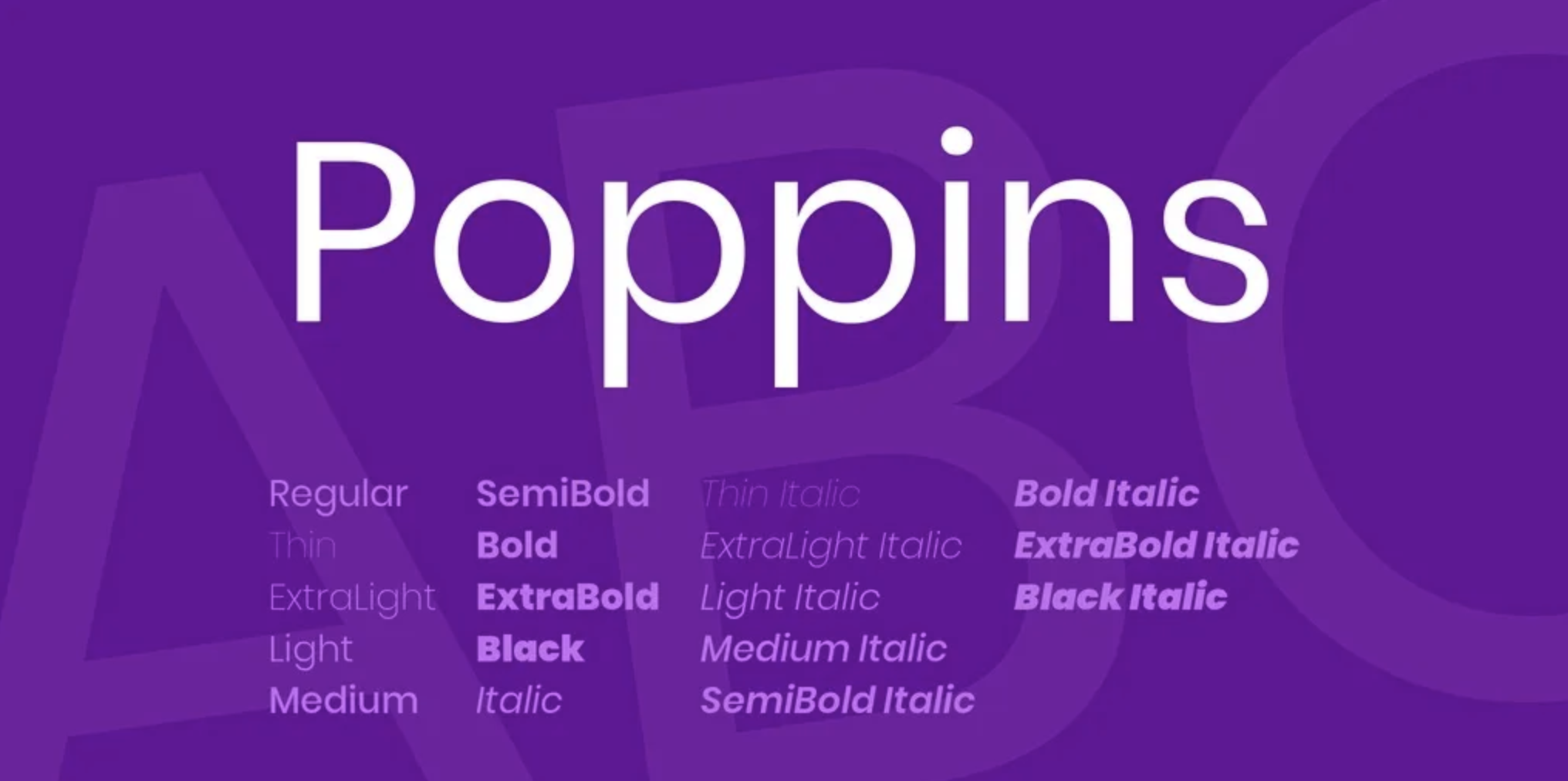
Its contemporary style makes it suitable for brands seeking a modern and openness message in the brand. It's a perfect font choice for your company marketing materials, for example business card , posters and invoice templates.
2. Almond
The Almond font is a blend of modern elegance, characterized by straight lines of varying widths that add a dynamic touch. Its classic foundation is enhanced by an infusion of elegance and a sense of dynamism, creating a unique typographic style.
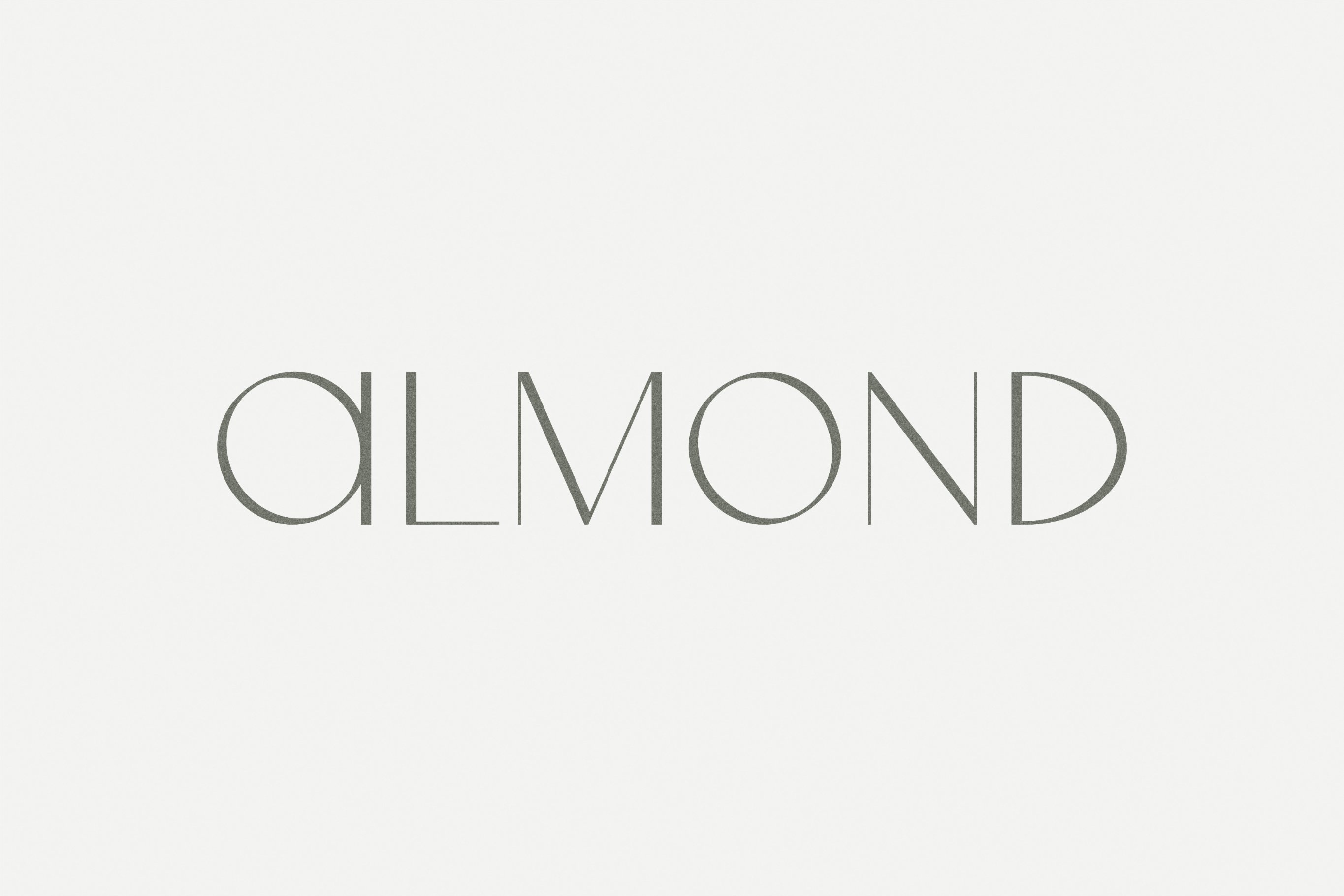
It's ideal for high-end brands seeking to bring out a modern and dynamic vibe. You can generate a unique logo symbol to complement your typeface to make a perfect logo for your business.
3. Shine
Shine is a very elegant handwriting font. It has a unique blend of classic grace and softness. Those elegant curves convey a sense of high-end and sophisticated appearance.
You can use this font for beauty, luxury or any high-end services or to create fancy signature logos. Utilizing this unique typeface will make your brand stand out from the crowed.
4. Julius Sans One
Julius Sans One is a very elegant sans-serif font. It has a unique balance of classic and contemporary design elements. It's a perfect choice for your logo if you are looking for bring certain sophistication and luxury to your brand.
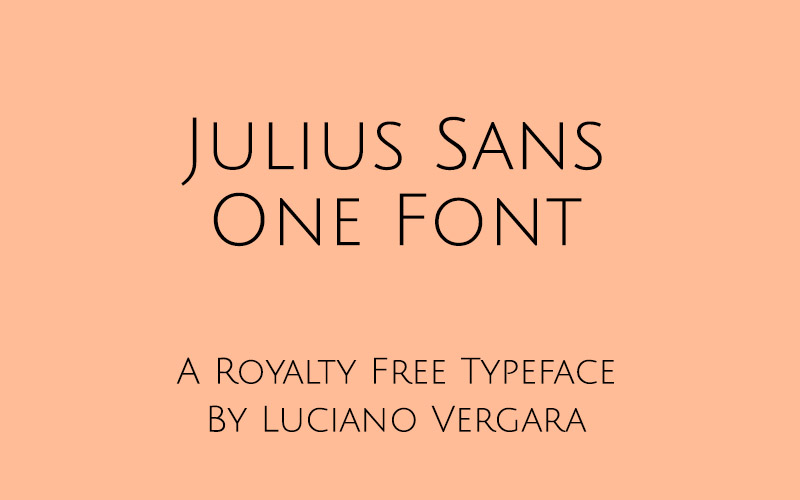
Julius Sans One could be a good choice for industries related to art, fashion, and design due to its unique and creative look.
5. Space Mono
Space Mono can be a very unique choice when it comes to branding. Combining traditional typewriter letterforms with a modern, geometric twist, it deliver a retro but futuristic vibe to the appeal.
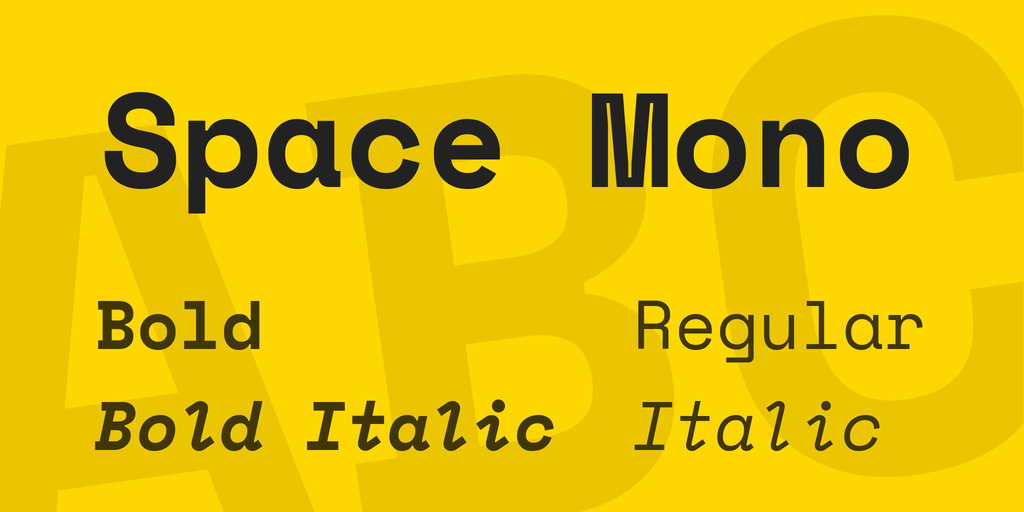
If you are about to start a company related to tech, coding or retro-themed design, Space Mono will be an excellent font to convey a sense of uniqueness and modernity.
6. Lena
Lena is a font that combine straight lines with soft forms to make the whole look very elegant. It is very suitable for companies with a strong brand style to use this font to convey brand character.
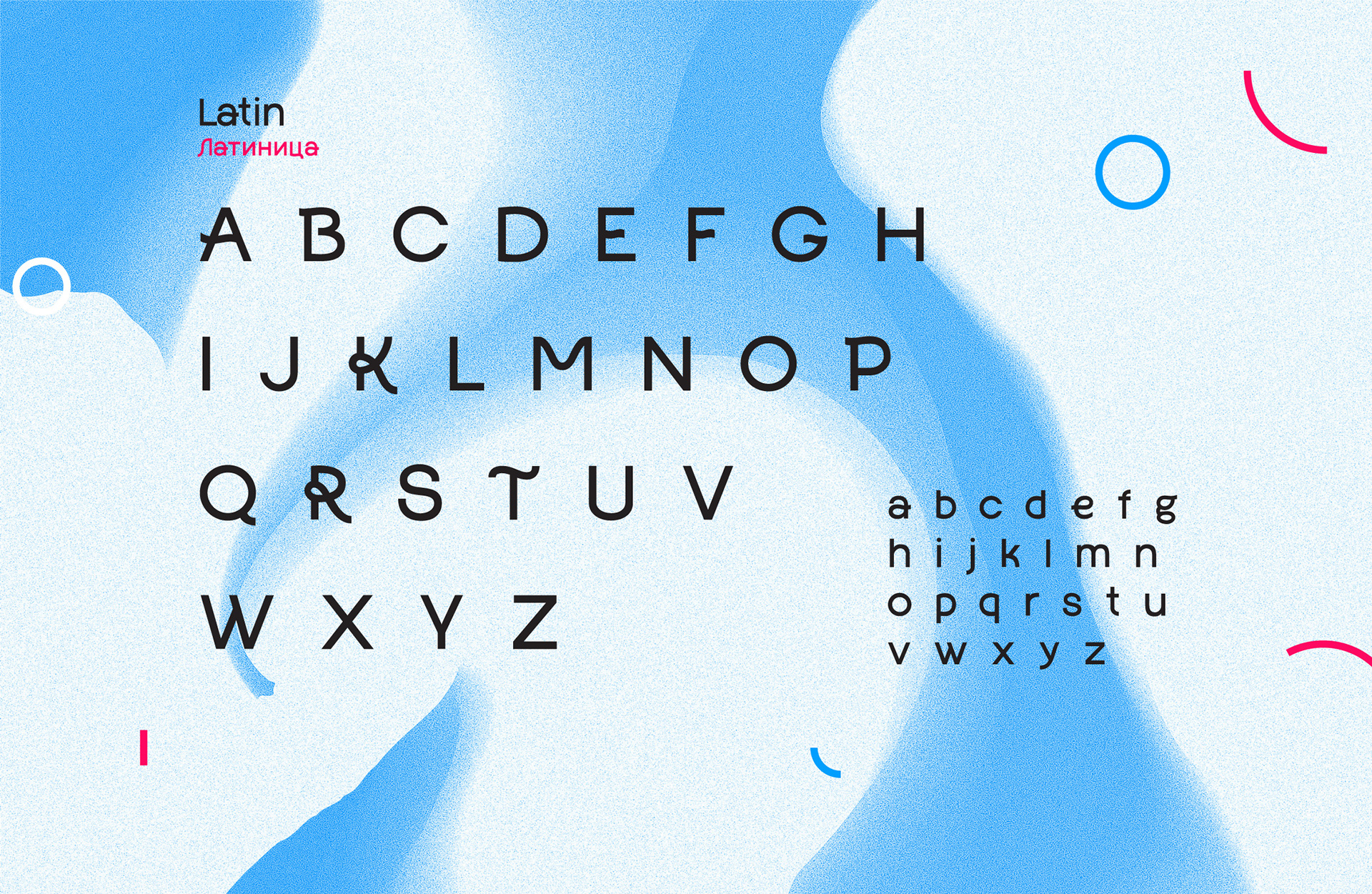
Lena's unique style makes it inviting and easy on the eyes, ideal for brands that want to convey a friendly yet refined image. Its contemporary style makes it suitable for brands seeking a modern and openness message in the brand.
7. Neucha
Neucha is a cute and playful typeface. With uneven baselines and varied stroke weights. These features contribute to its lively and engaging appearance.
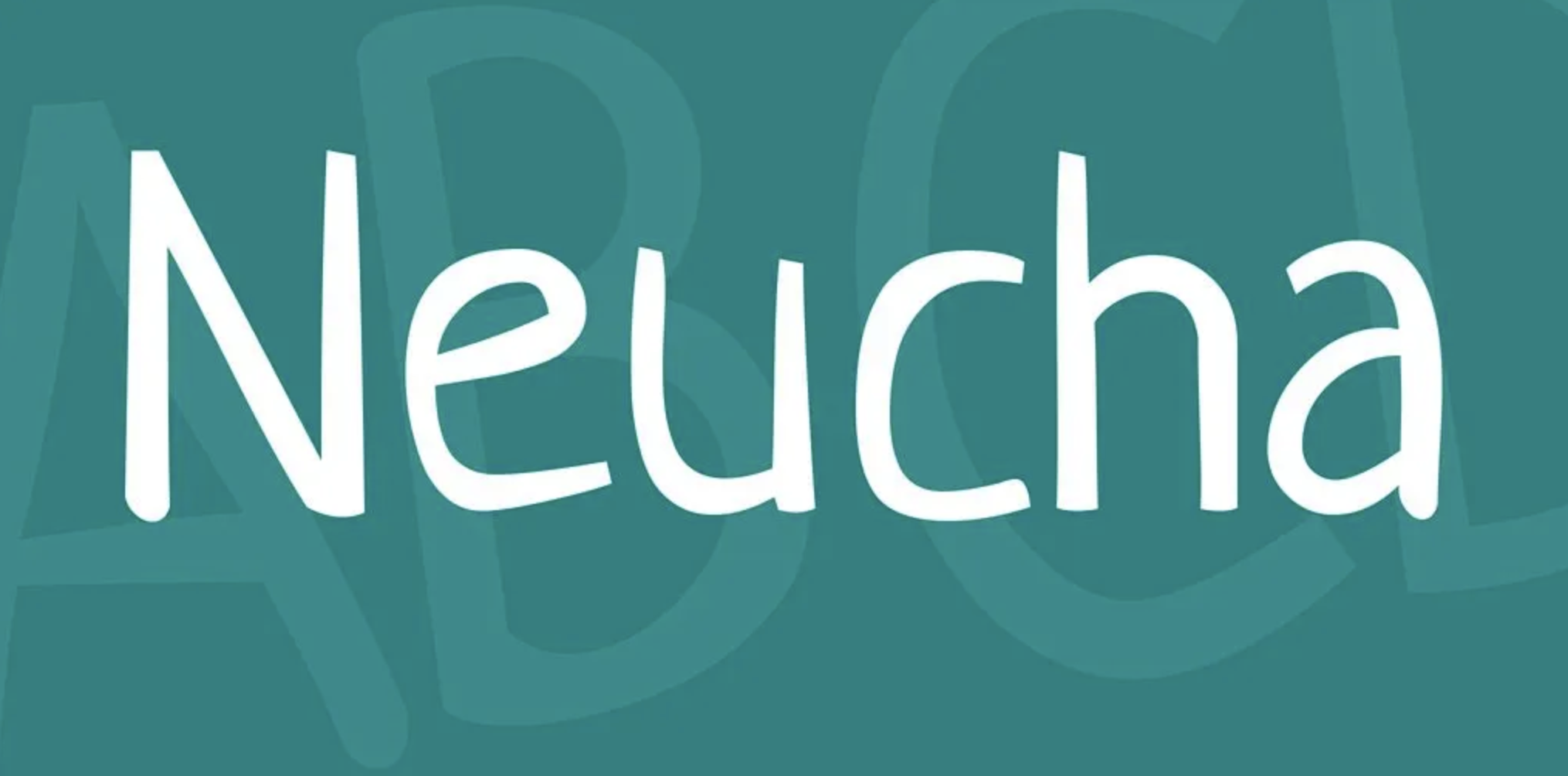
These quirky handwritten letterforms are excellent choice for creative or casual brands.
8. Monoton
Monoton has a special font effect using lines to form letters. Its special effect captures attention instantly, also it retains proper readability.
If you're looking for a bold and memorable font for your brand, Monoton will be an excellent choice.
9. Clab
Clab is a serif font distinguished by its bold and chunky personality. This typeface combines the classic touch of serifs with a robust and substantial character, making it stand out in any design context.
This mix of chunky styling with classic serif elements makes Clab an ideal choice for brands that seeking to create strong, yet bold startup logos.
10. Righteous
Righteous designed with a grid-based, geometric approach, it offers excellent readability across various sizes, making it perfect for both display and print purposes.
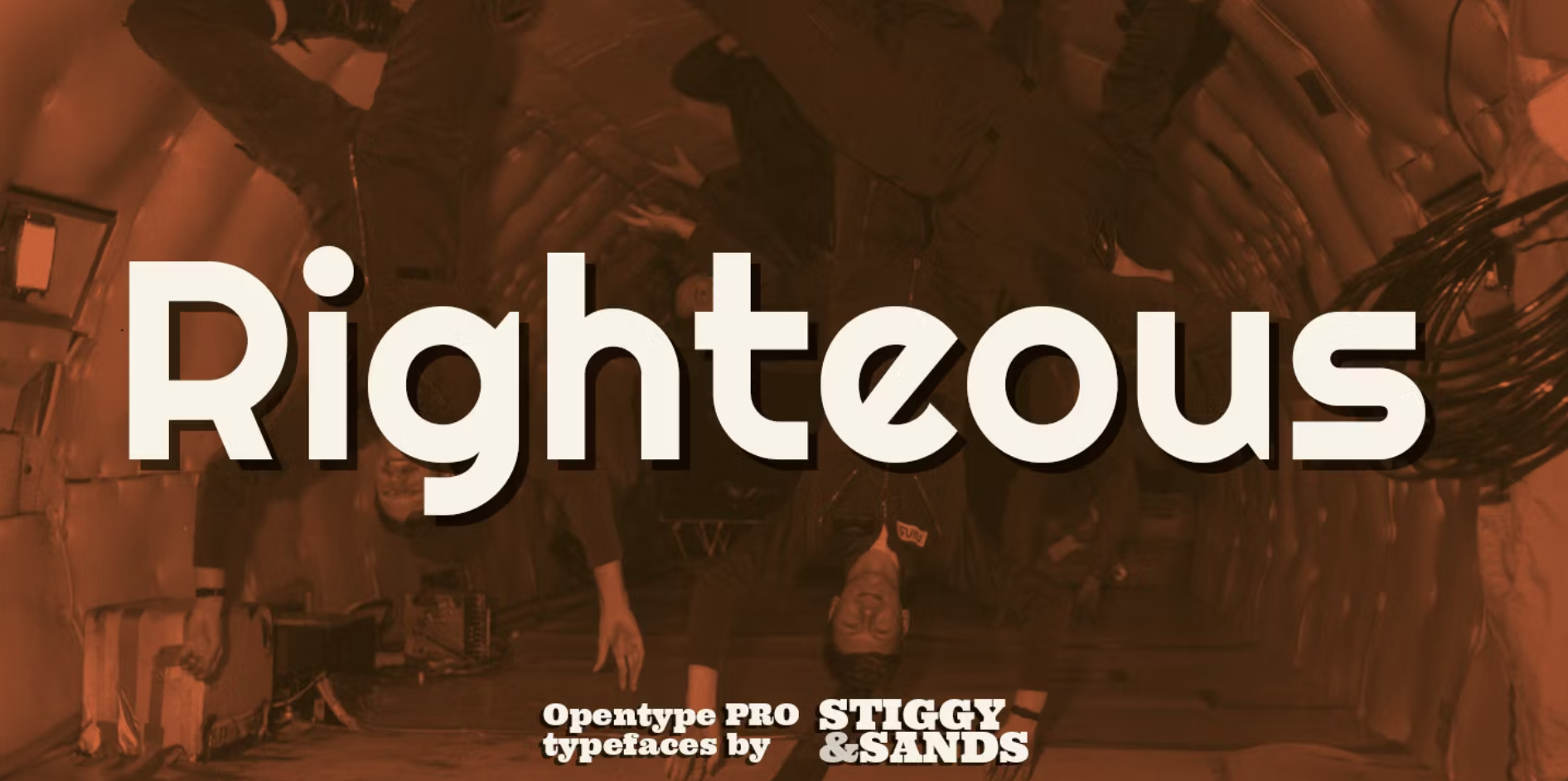
Righteous Pro includes not only a full lowercase set but also SmallCaps and an extensive range of figures. This enhances its flexibility and usability in diverse design contexts.Julius Sans One could be a good choice for industries related to art, fashion, and design due to its unique and creative look.
Wrap Up
In conclusion, selecting the right font for your logo is a crucial step in defining and communicating your brand's identity. With LogoAI, you have access to over 1500 free Google fonts right at your fingertips. We are also recommended by theinsaneapp as the base AI logo generator tools. Always remember, the choice of font should align with your brand's personality, target audience, and overall branding strategy. Ensuring your brand message resonates with your audience is crucial. To deliver a compelling brand message and value, originality is key. If you wonder how to write my essay fast and free of plagiarism, you can leverage various tools to ensure your content is both unique and impactful. By carefully considering these aspects, you can select a typeface that not only makes your logo visually appealing but also reinforces your brand's message and values. Take advantage of these diverse font options to make your brand stand out and resonate with your audience.